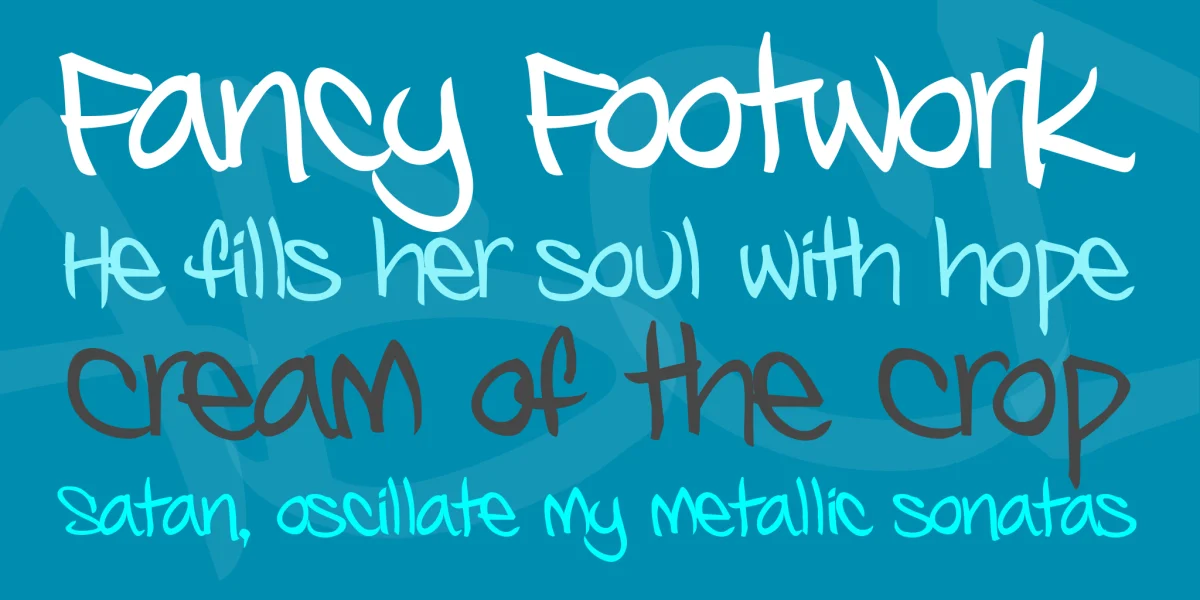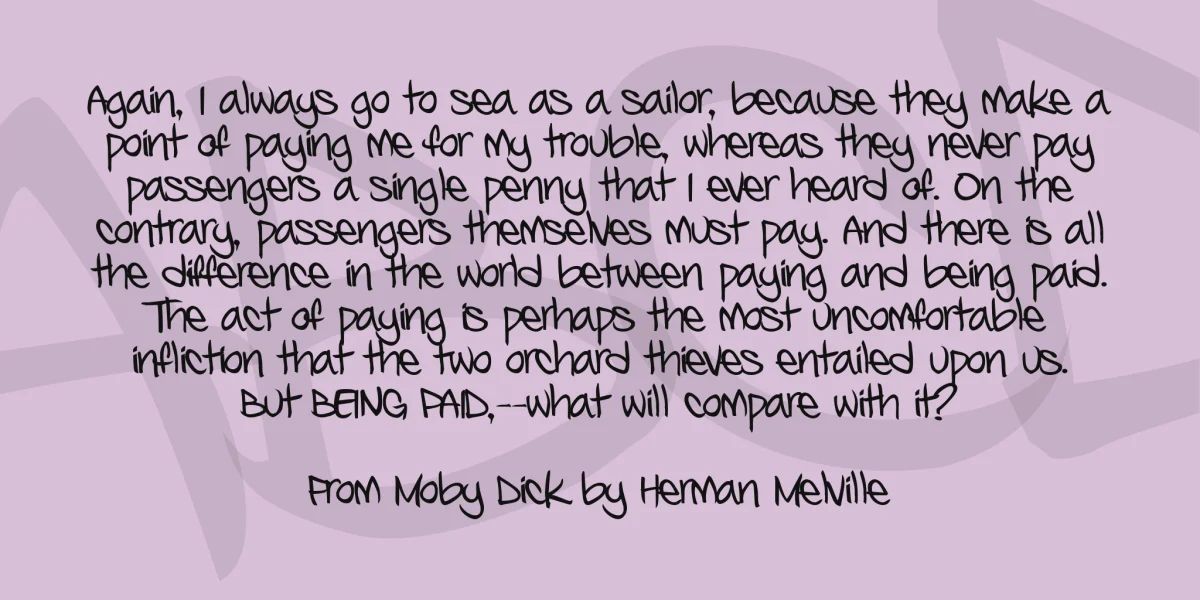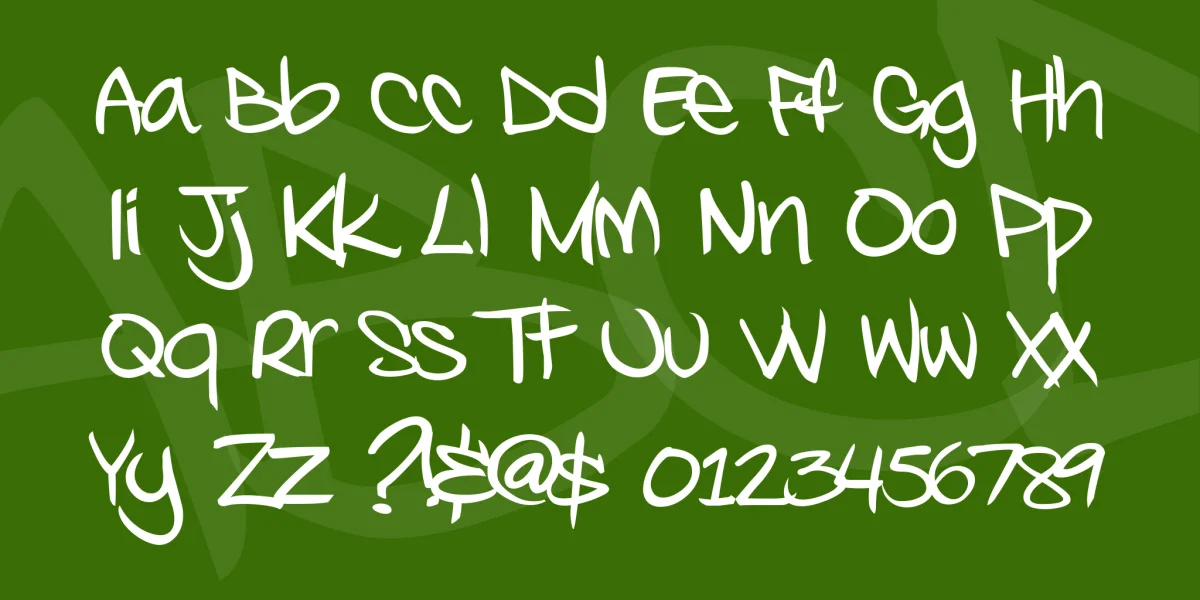
"Kosal says hy" is my first attempt at making a font. It is based loosely on my handwriting, designed to look spontaneous and quick with an urban attitude. Useable only at small sizes! www.salsen.com